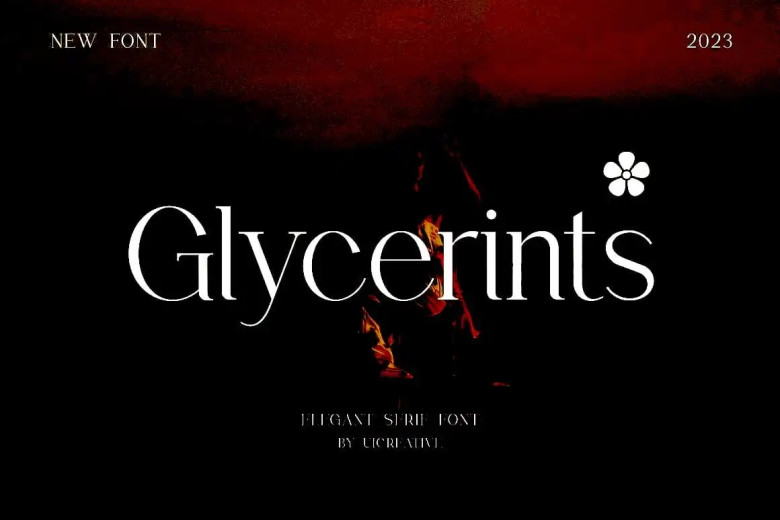
Glycerints Font
A modern Serif font , Glycerints is both beautiful and classy. This font is suitable for a variety of projects such as signatures, stationery, logos, weddings, typography quotes, magazine or book covers, website titles , clothing designs, branded packaging and so on. The exhibition of fashion-related branding or editorials combines distinct masculinity and femininity.
Glycerints Modern Serif Font